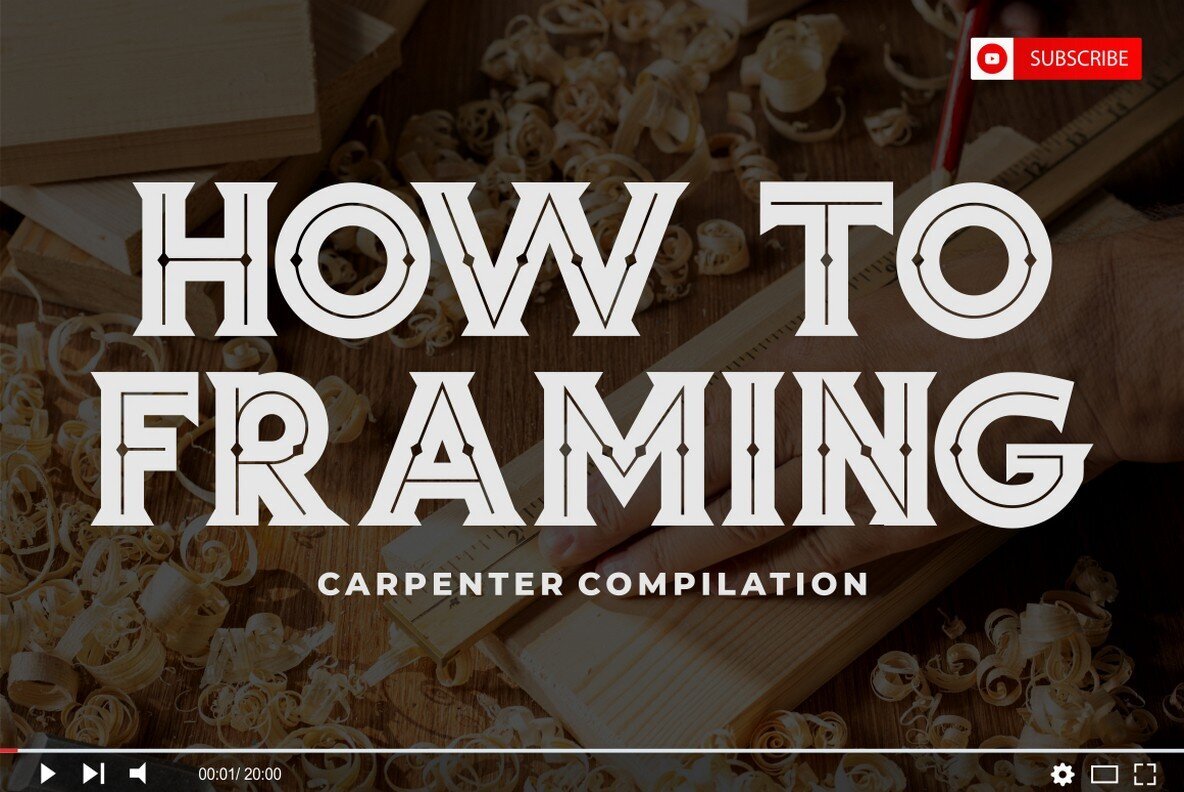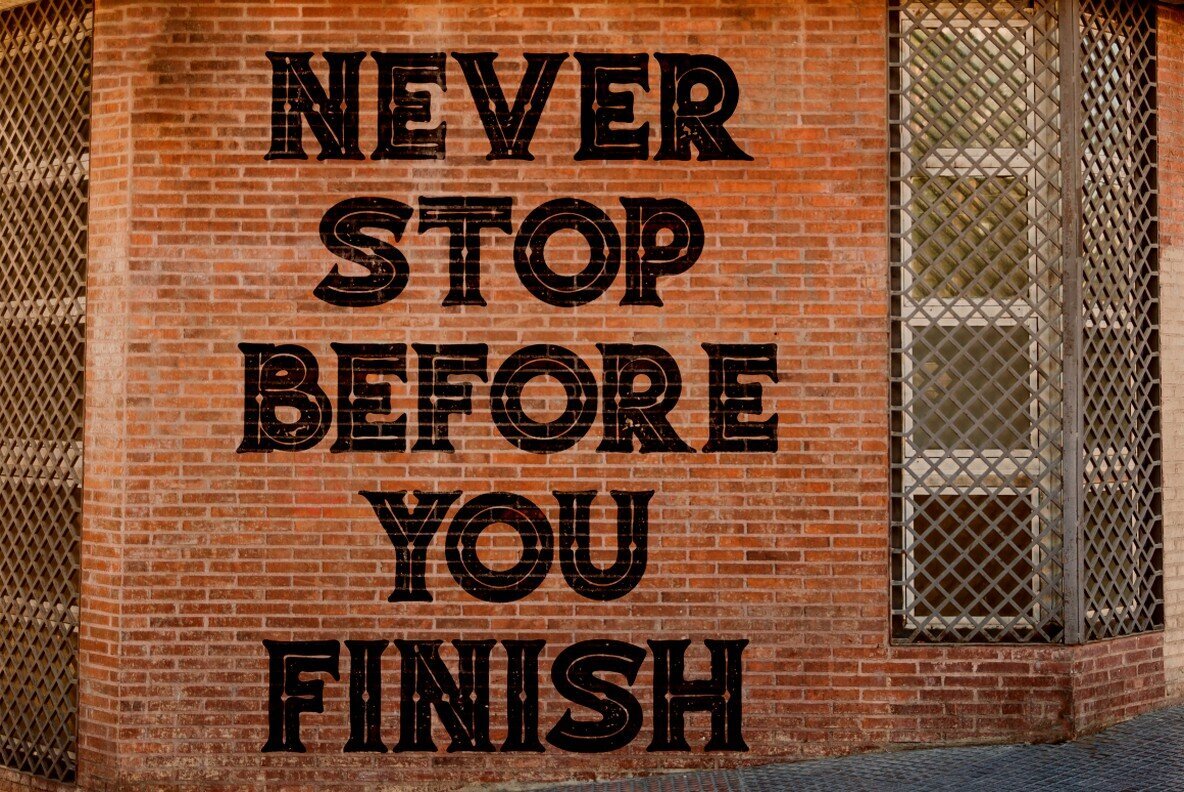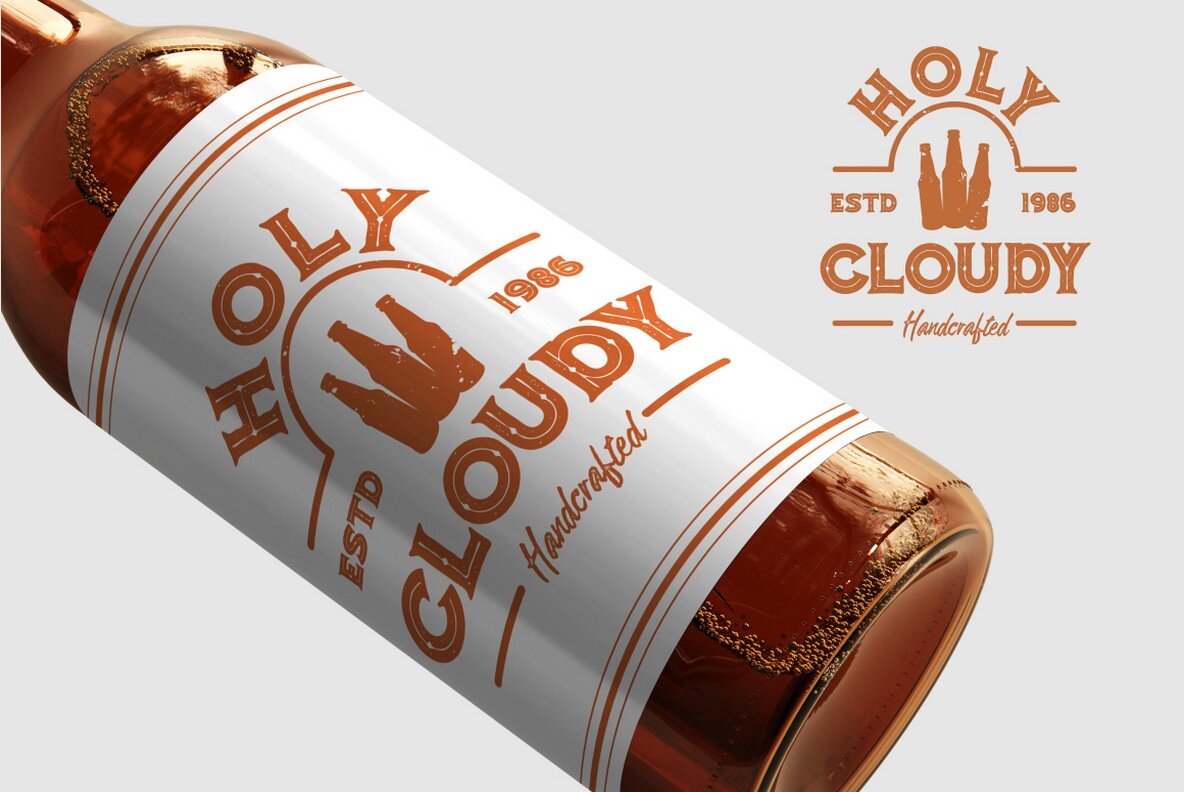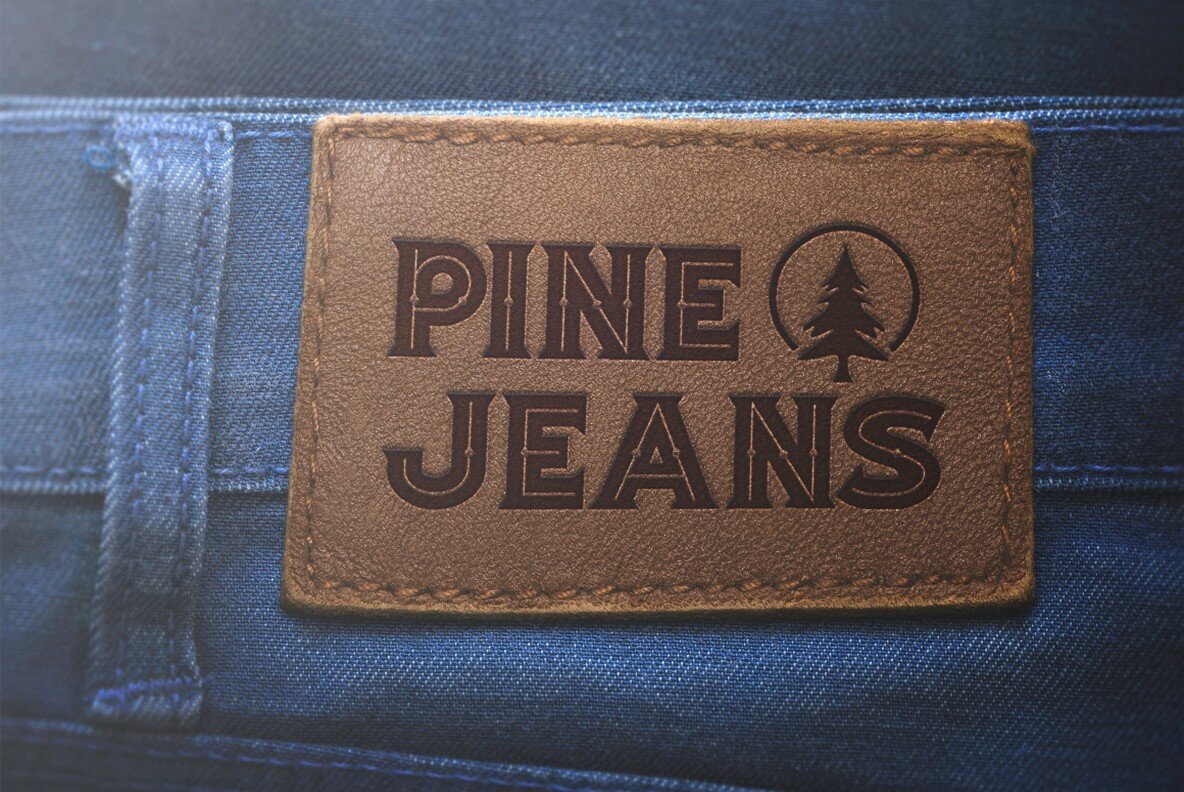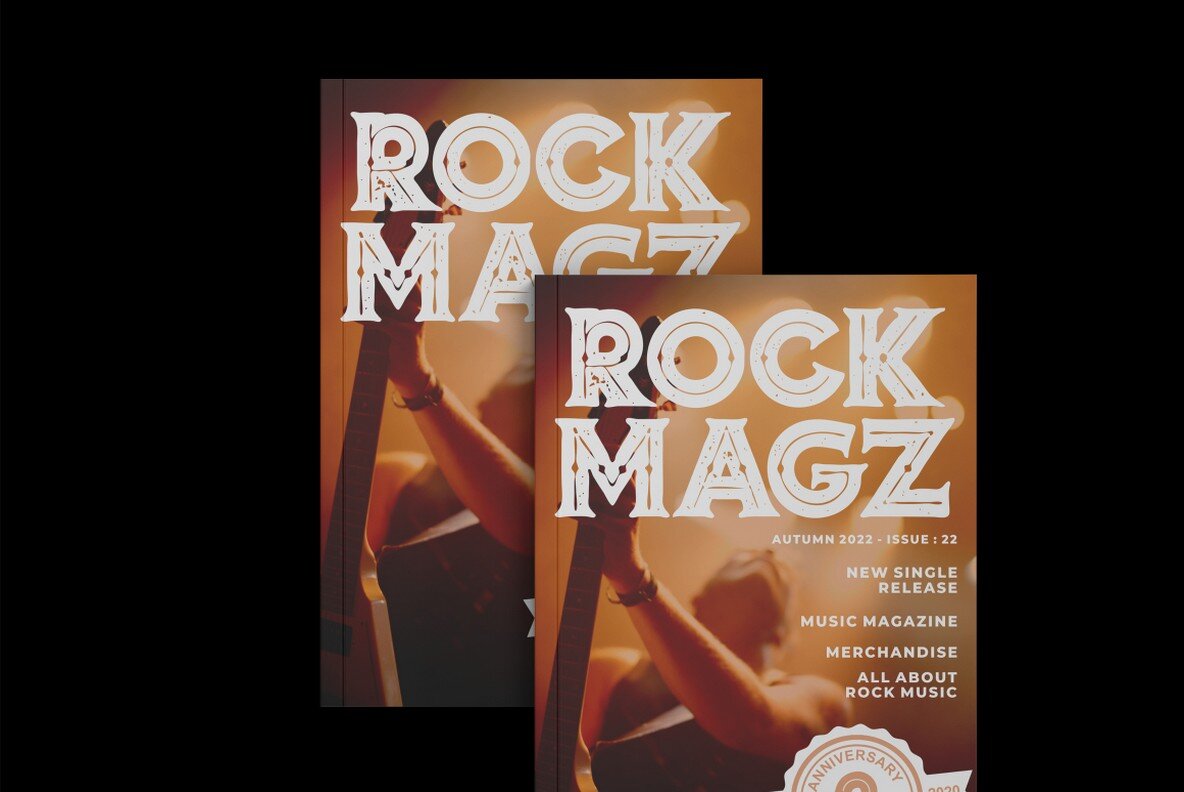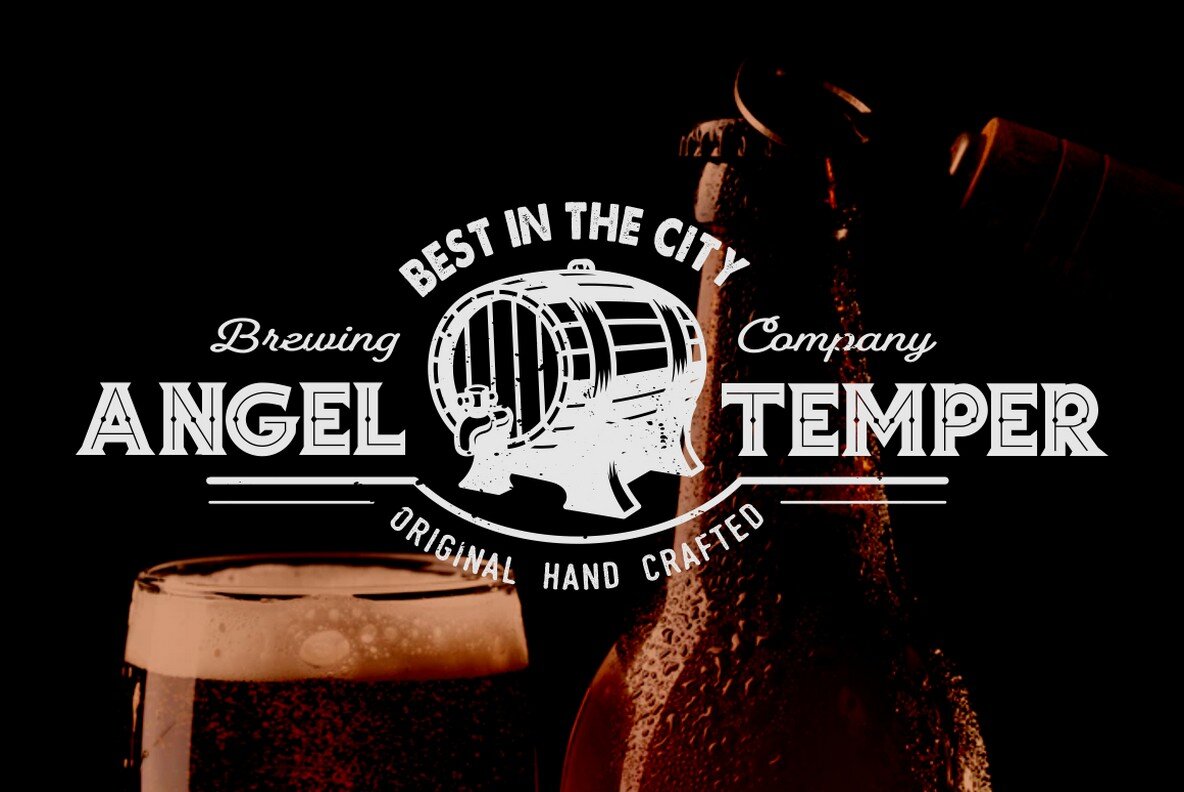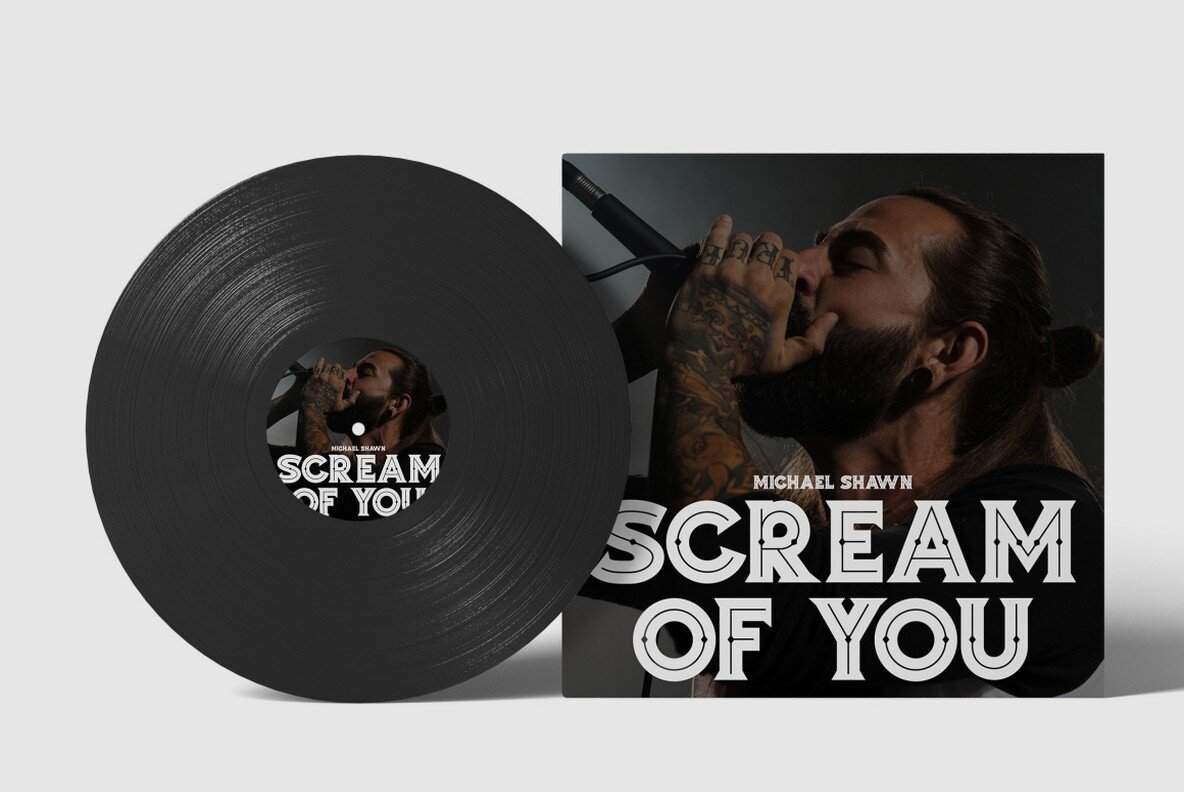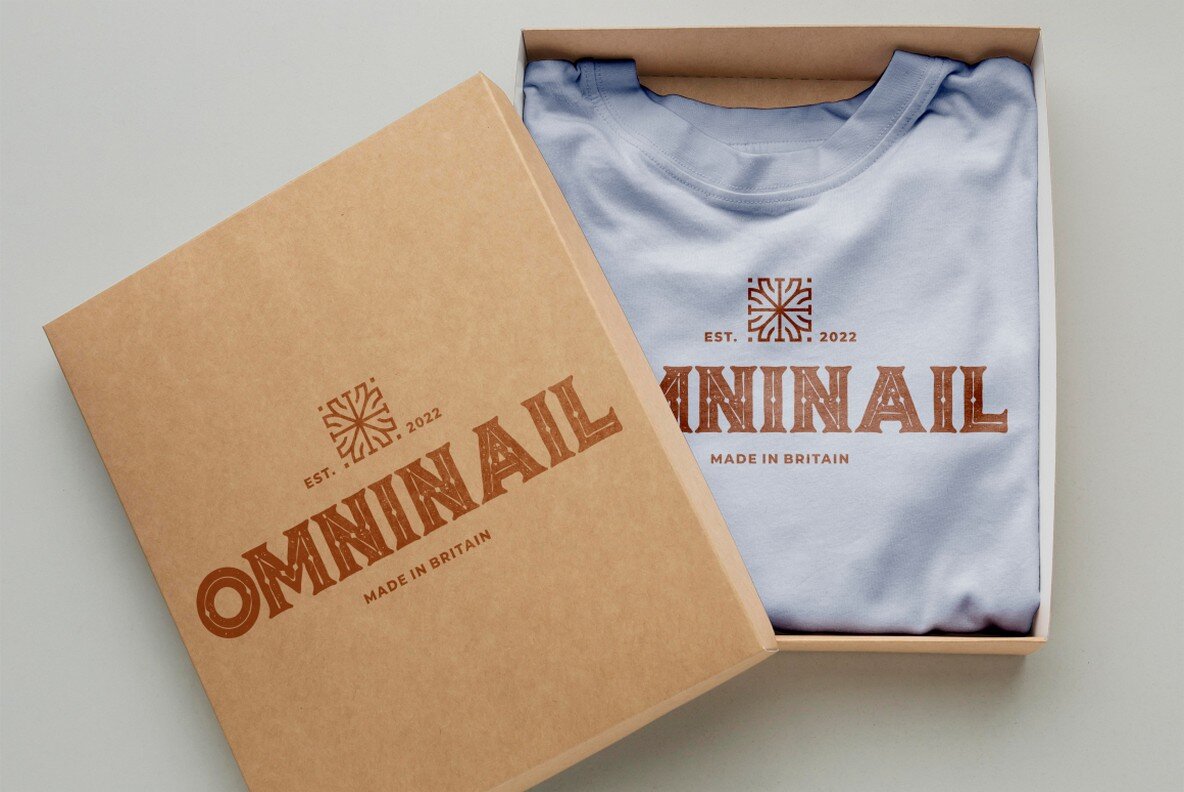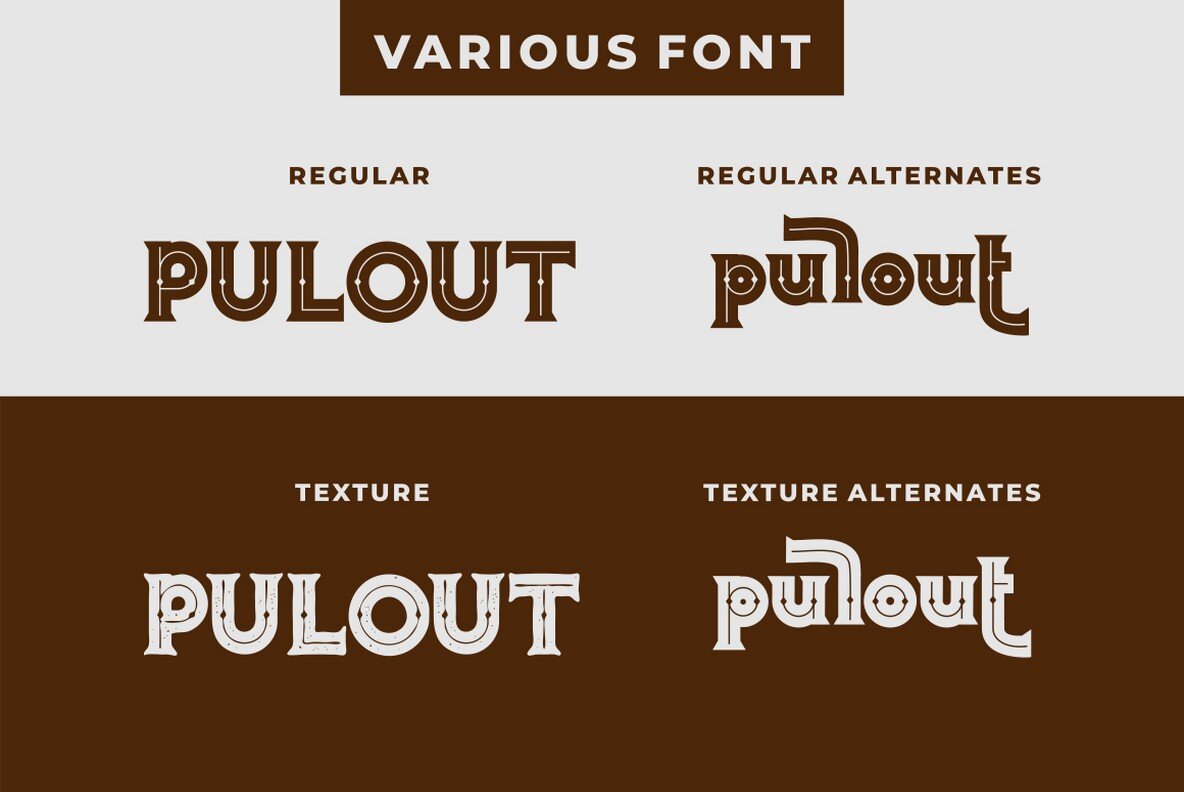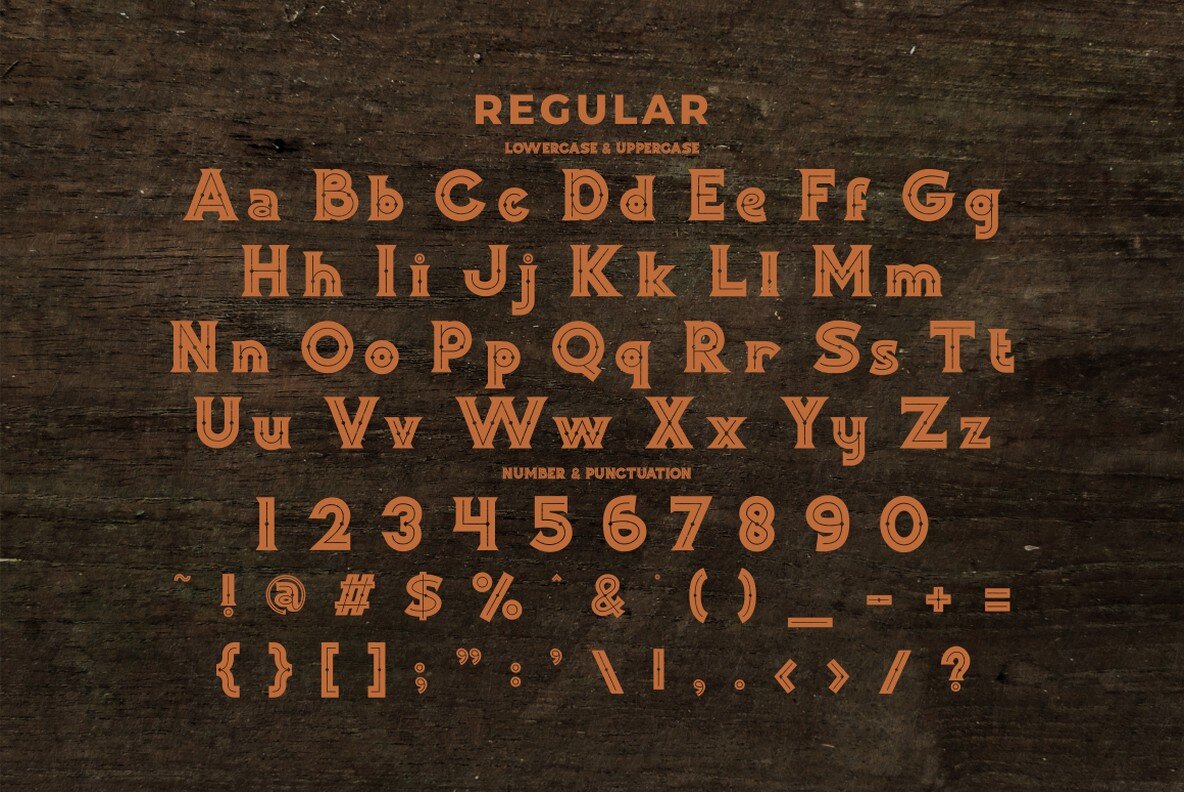
Woodshed Font
WOODSHED Regular
WOODSHED Texture
Step into a world where vintage charm meets modern versatility with Woodshed, a decorative serif font inspired by classic posters of yesteryear. Infusing traditional aesthetics with a contemporary twist, Woodshed offers a distinctive look that is both retro and trendy. Whether you're designing an album cover, a poster, or a greeting card, this font promises to enhance any display endeavor. Woodshed's alternative characters are deliverable via OpenType features like Stylistic Alternates and Ligature, accessible through software such as Adobe Illustrator, InDesign, and Corel Draw. Dive into a design journey with Woodshed, where every detail counts.Woodshed: Vintage-Inspired Decorative Serif Font